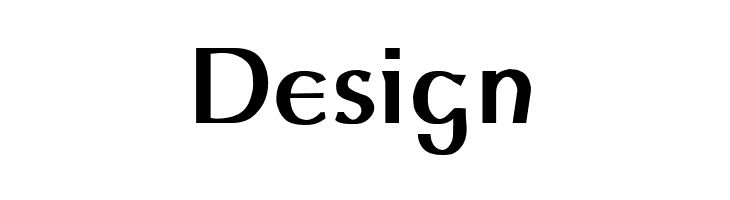
Renaiss-Italic Font
( Fonts by Andreas Hofeld - www.fontgrube.de )
A modern, elegant font with sharp and smooth elements, ideal for versatile applications.